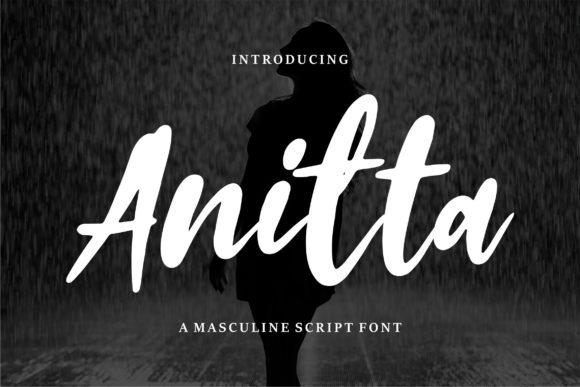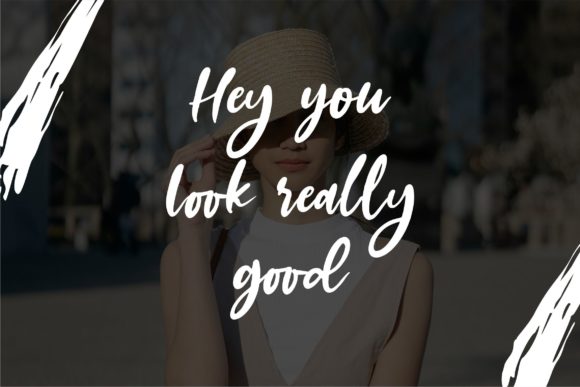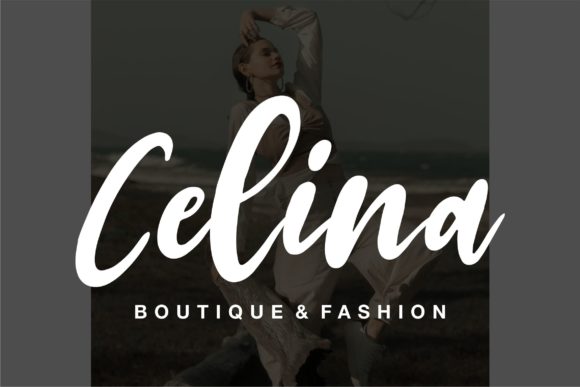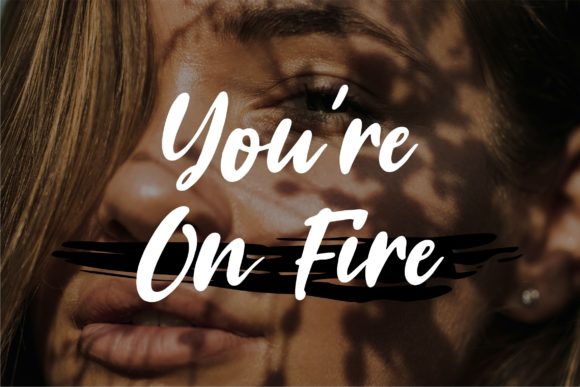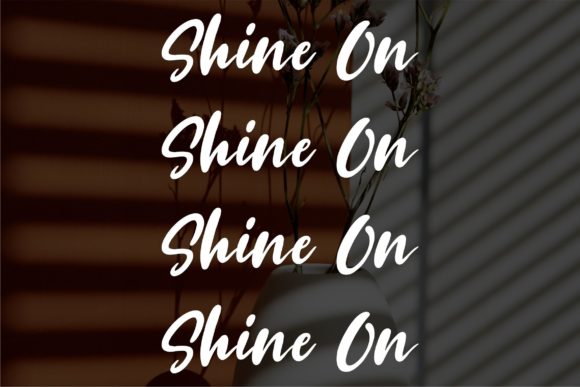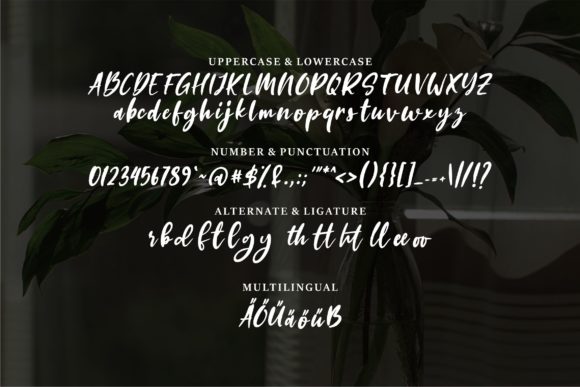
Anitta Font
About Anitta Font
Anitta is a trendy and chic handwritten font. It has a neat and modern look that can be used for logos, branding, invitations, stationery, wedding designs, social media posts, and much more!